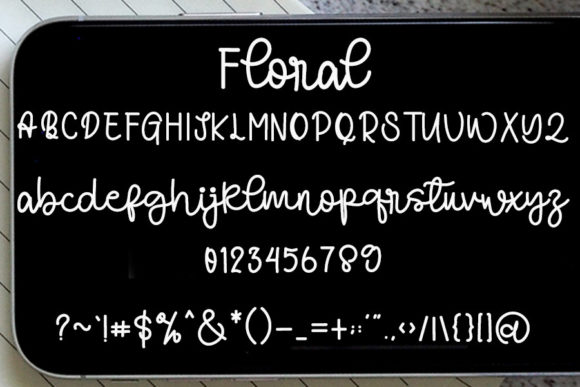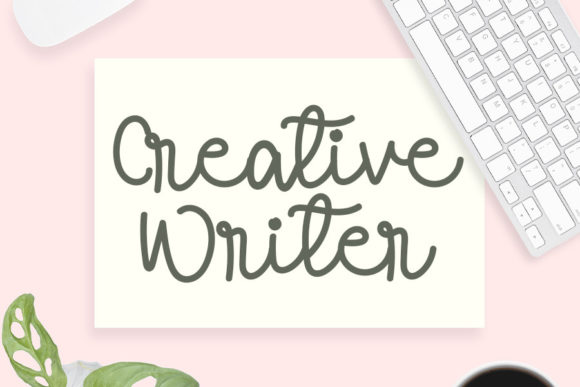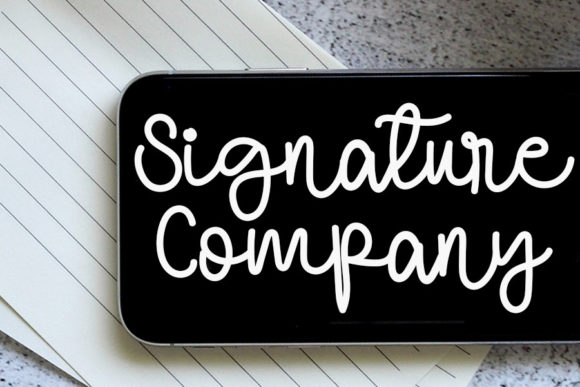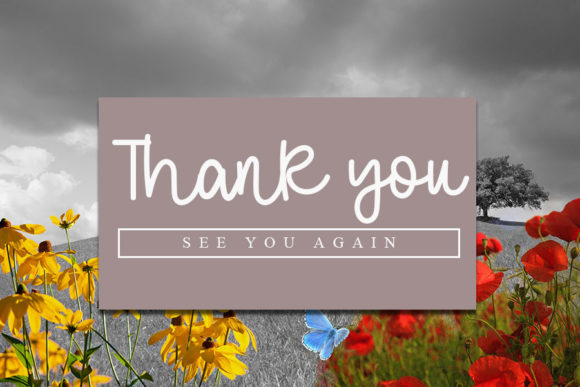
Introducing Floral Font: The Perfect Choice for Elegant Designs
Are you looking for a font that adds a touch of elegance and sophistication to your designs? Look no further than Floral Font, a unique and beautiful handwritten font that’s perfect for a variety of creative projects. In this article, we’ll explore the features and benefits of Floral Font, and show you how it can elevate your designs to the next level.
What is Floral Font?
Floral Font is a stunning handwritten font that’s designed to bring a touch of elegance and whimsy to your designs. With its delicate and intricate lettering, this font is perfect for creating beautiful and eye-catching designs that require a personalized style. Whether you’re working on a wedding invitation, a thank you card, or a logo, Floral Font is the perfect choice.
Key Features of Floral Font
- Unique and Elegant Design: Floral Font features a one-of-a-kind design that’s both elegant and sophisticated. Its intricate lettering and beautiful swashes make it perfect for creating stunning designs.
- Handwritten Style: This font has a beautiful handwritten style that’s perfect for adding a personal touch to your designs.
- Versatile: Floral Font can be used for a variety of designs, including wedding invitations, thank you cards, weddings, greeting cards, logos, and more.
Benefits of Using Floral Font
So why choose Floral Font for your designs? Here are just a few benefits of using this beautiful font:
- Adds a Touch of Elegance: Floral Font adds a touch of elegance and sophistication to any design, making it perfect for special occasions like weddings and anniversaries.
- Personalized Style: This font has a unique and personalized style that’s perfect for creating designs that stand out from the crowd.
- Time-Saving: With Floral Font, you can create beautiful designs in no time. Its easy-to-use design and versatility make it a great time-saving tool for designers and crafters.
- High-Quality: This font is designed with high-quality and clarity in mind, making it perfect for printing and digital use.
Creative Uses for Floral Font
So what can you create with Floral Font? The possibilities are endless! Here are a few ideas to get you started:
- Wedding Invitations: Create beautiful and elegant wedding invitations that set the tone for the big day.
- Thank You Cards: Add a personal touch to your thank you cards with Floral Font’s beautiful handwritten style.
- Logos: Use Floral Font to create a unique and memorable logo for your business or brand.
- Greeting Cards: Create stunning greeting cards for special occasions like birthdays, anniversaries, and holidays.
In conclusion, Floral Font is a unique and elegant handwritten font that’s perfect for designers and crafters looking to add a touch of sophistication to their designs. With its delicate and intricate lettering, this font is perfect for creating beautiful and eye-catching designs that require a personalized style. Whether you’re working on a wedding invitation, a thank you card, or a logo, Floral Font is the perfect choice. So why wait? Download Floral Font today and start creating stunning designs that will leave a lasting impression!